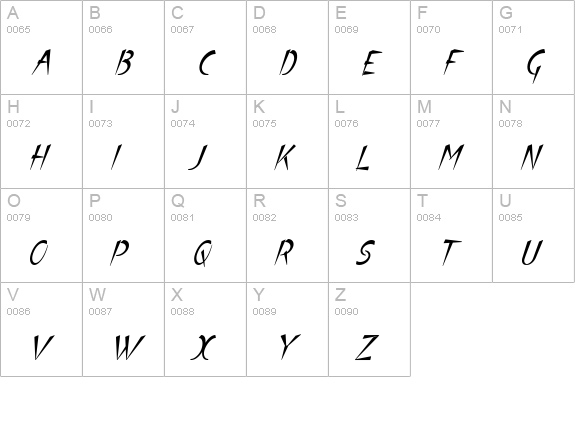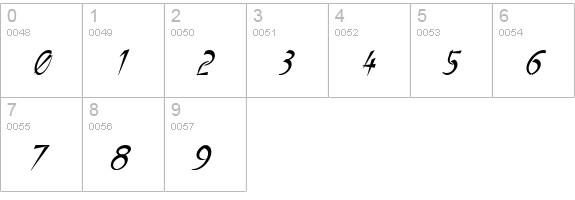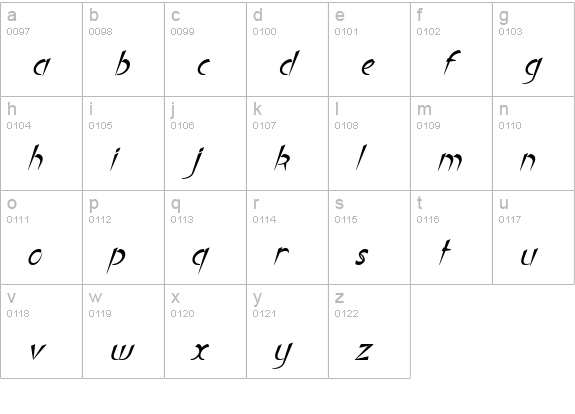
Luteous Aublikus Font Details
Luteous Aublikus is a stunning and unique font that exudes elegance and sophistication. With its stylish curves and intricate details, this font is perfect for adding a touch of class to any design project. The combination of sharp edges and smooth lines creates a beautiful contrast that will make your text stand out. What makes Luteous Aublikus even more appealing is that it is available for free download at FontsMarket.com. This means you can easily access this gorgeous font and use it in your projects without any cost. Whether you're designing a poster, creating a logo, or working on a website, Luteous Aublikus is sure to elevate your work to the next level. Don't miss out on this incredible opportunity to enhance your designs with the exquisite Luteous Aublikus font. Download it for free today and let your creativity soar!